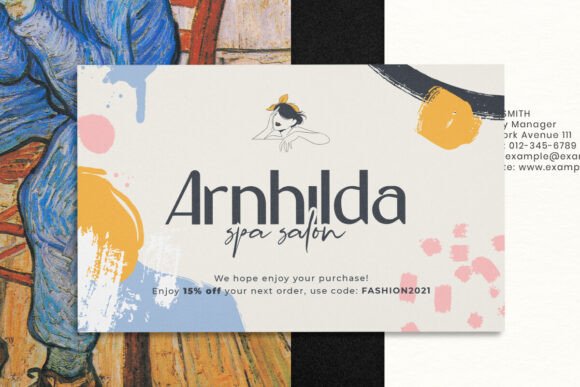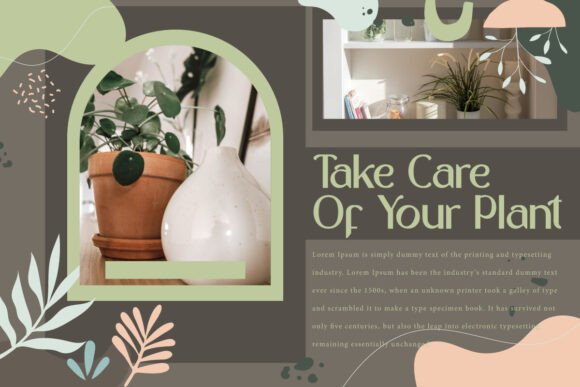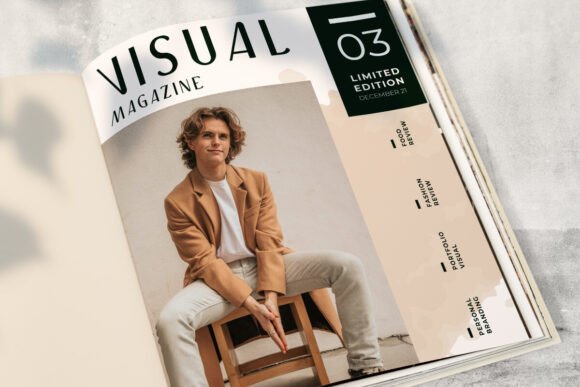
Introduction to Margareto Font
Have you ever stared at a blank canvas, wondering where to start your next creative project? The blank page can be intimidating, but with the right design resource, it can become a blank slate for your imagination to shine. That’s where Margareto Font comes in – a stylish, sophisticated sans serif display font designed to add a touch of elegance to any design.
As a designer, you know how crucial it is to have access to high-quality design resources that can elevate your work. Margareto Font is one such resource that can add a level of sophistication to your designs, from advertisements to product packaging, and everything in between. With its unique line shape and transparent background, this font is perfect for designers looking to add a touch of creativity to their projects.
Key Features of Margareto Font
- High-quality typography with a unique, elegant design, ideal for creative projects and design resources.
- Features a transparent background, allowing for seamless integration with any design or image.
- Includes a wide range of characters, including uppercase and lowercase letters, numbers, and punctuation marks.
Honest Review: Margareto Font
As a designer, I’m always on the lookout for high-quality design resources to elevate my creative projects. The Margareto Font is one such find that has caught my attention lately.
Here’s what works well: ✨ The Margareto Font offers a free download option, which is a great perk for designers on a budget. The font also features a transparent background, making it easy to use in various design scenarios. The high quality of the font is evident in its crisp and clean lines, making it perfect for body text and headings alike.
Some things that could be improved: ⚠️ While the Margareto Font is a great addition to any design library, its limited character set might be a drawback for some designers. Additionally, the font may not be suitable for use in certain creative projects that require a wide range of special characters.
Overall, I’m impressed with the Margareto Font and would definitely recommend it to designers looking for a high-quality, free download font. Just be aware of its limitations and use it judiciously in your design projects.
- Limited character set
- Not suitable for all creative projects
Common Use Cases for Margareto Font
Margareto Font is suitable for various creative projects, including business cards, brochures, and social media graphics. The font’s high-quality design makes it an ideal choice for designers and non-designers alike.